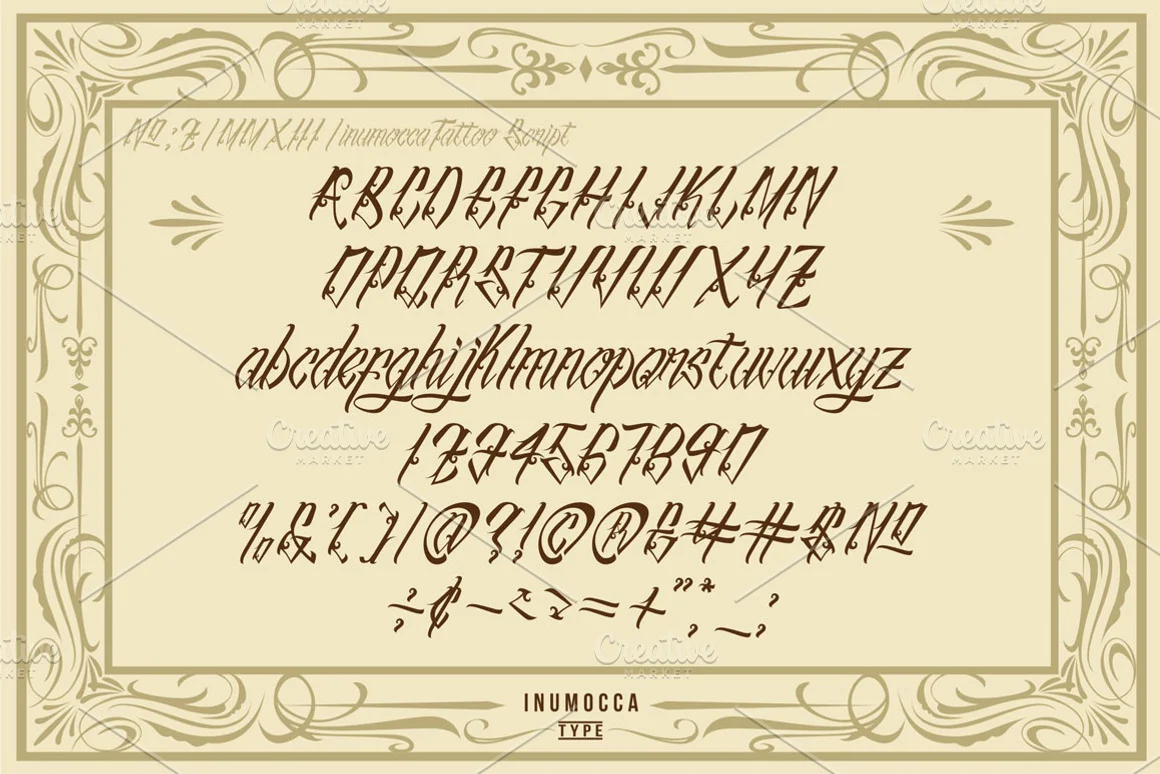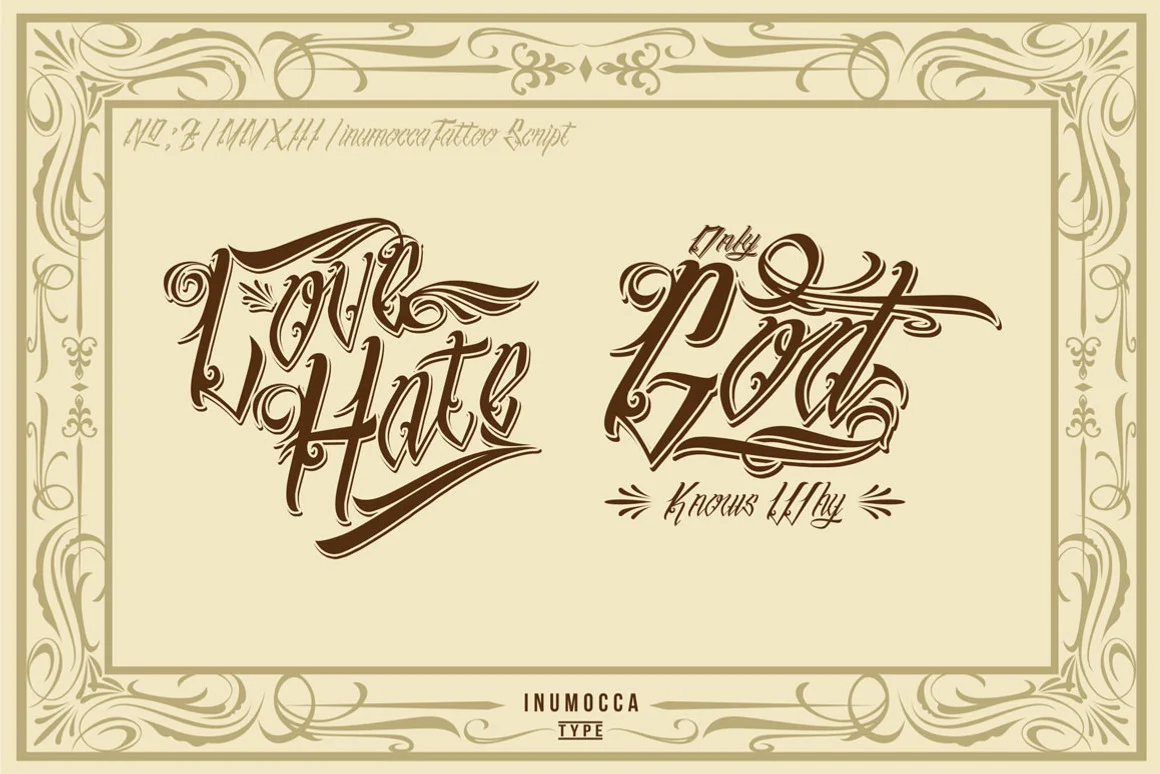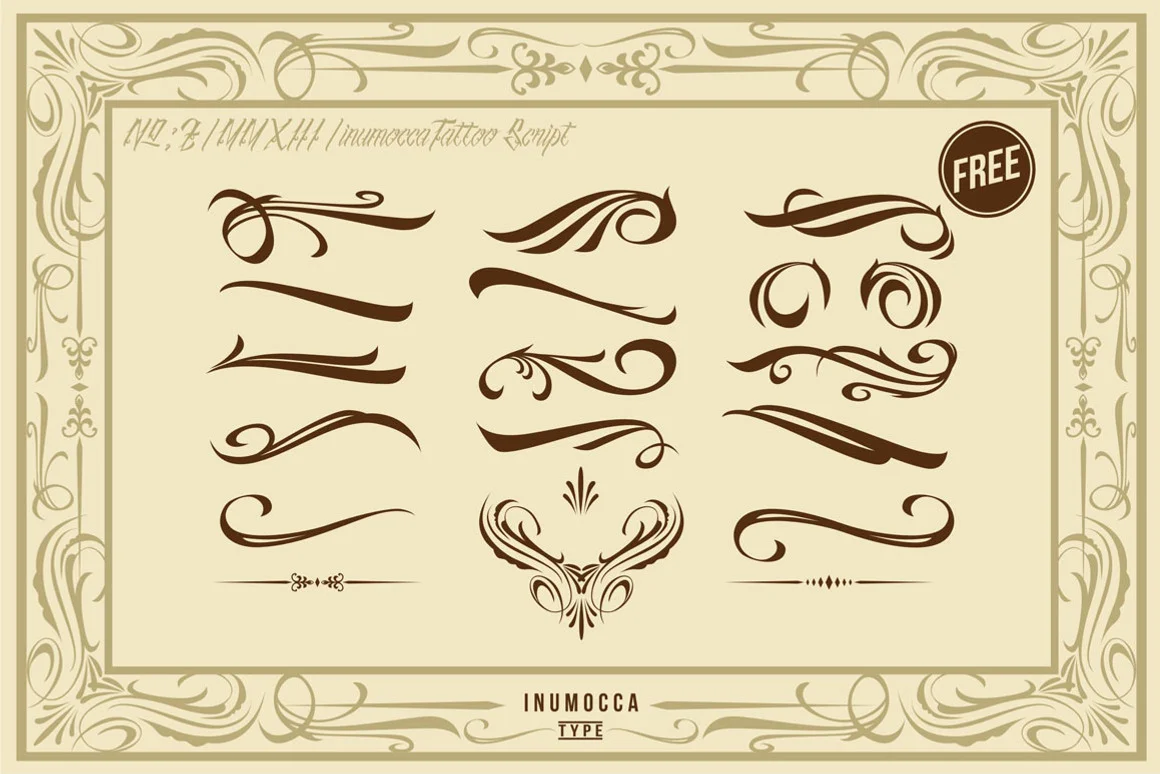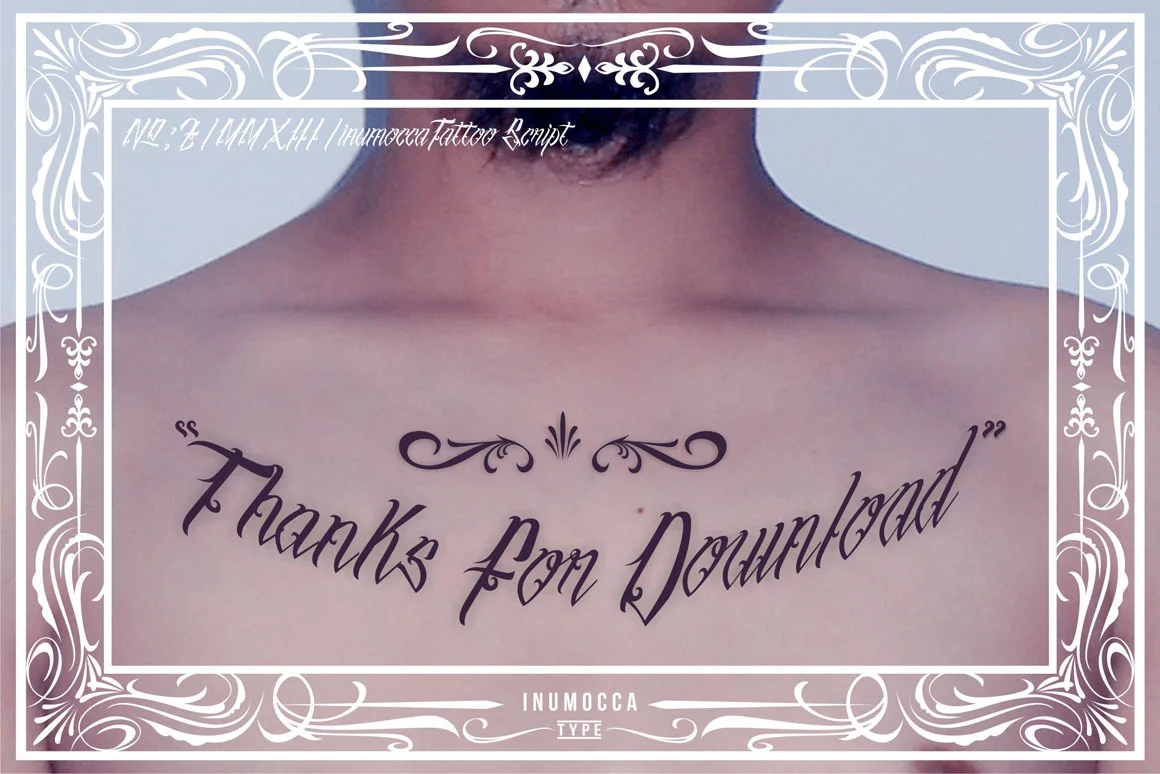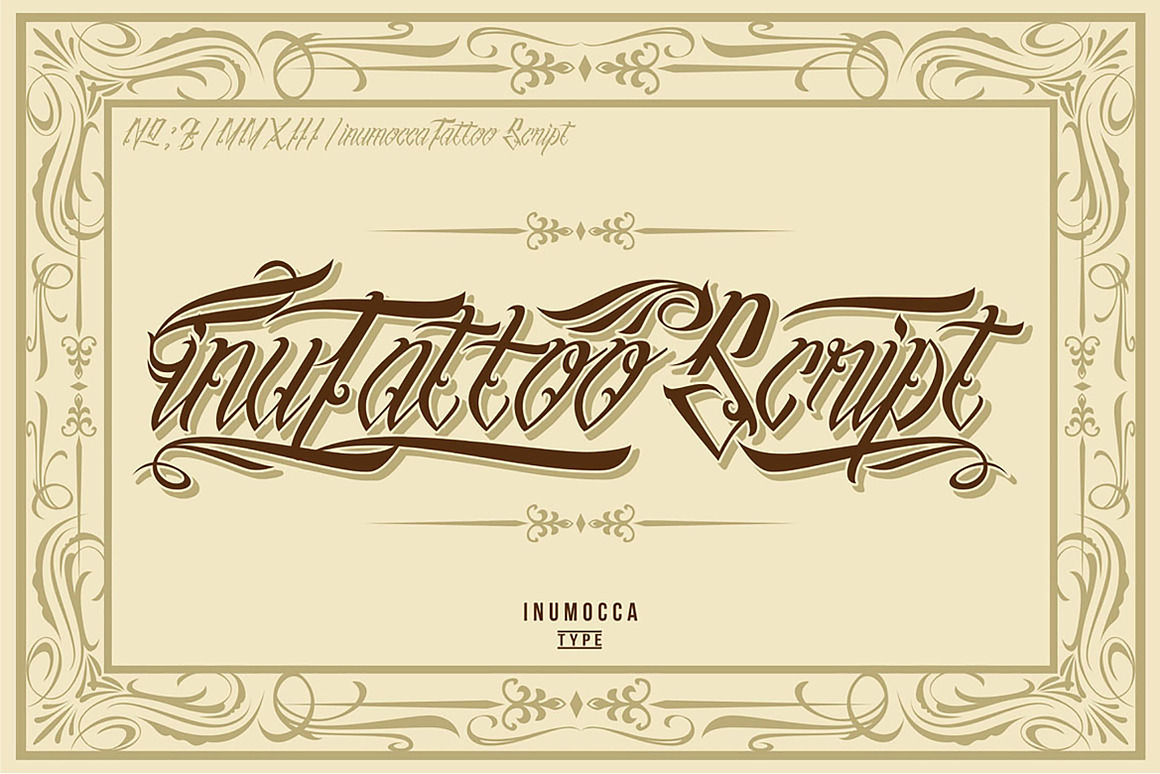
inuTattoo Script + Poster Vector
A good typeface communicates tone before a single word is read. inuTattoo Script + Poster Vector achieves this through strong typographic hierarchy support. The typeface brings an elegant, calligraphic sensibility to a broad range of creative disciplines, with visual harmony and precise spacing that holds up whether the work is print-first or screen-first.
In practice, inuTattoo Script + Poster Vector proves particularly effective for social media graphics, environmental graphics, luxury stationery, web design, brand identity systems. Designers reaching for it find that the type decisions feel resolved rather than laboured — a useful quality when client timelines are tight.
The range of applications extends to event signage, annual reports, beauty packaging, logo design. That breadth is deliberate: the proportions and spacing were stress-tested across a wide range of mock briefs before the typeface was finalised.
The consistent rhythm of inuTattoo Script + Poster Vector across a full paragraph creates the kind of even grey value that makes extended reading comfortable, a detail that matters more in long-form content than its subtlety might suggest.
Motion designers building title sequences and lower thirds find inuTattoo Script + Poster Vector a reliable choice for projects that demand both personality and restraint. The design avoids the self-conscious quirkiness that dates quickly, settling instead for considered distinctiveness that holds up over time.